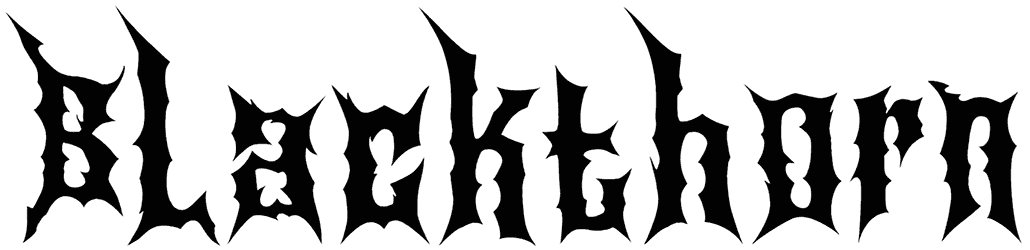
Blackthorn Font
Sometimes you may feel the necessity of utilizing a death metal font such as Blackthorn on web pages, video game brochures, book covers, historical movie posters, or editorial projects.
Since this masterpiece comes with stretched and elongated edges, it can lead to a sense of classic, vintage, eerie, or mysterious. Just in case you require another font the same as this one, we invite you to visit our rich archive.